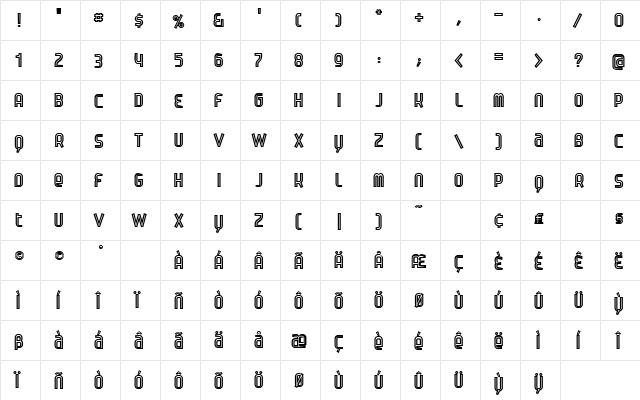
Danoutline Regular
Design Context for Danoutline Typeface
Danoutline is built around its visual character rather than neutral utility — its distinctive forms are designed to make an impression at display sizes.
Font Pairing: Pair with a clean neutral sans-serif for body copy to let Danoutline's character lead without overwhelming the composition.
Pro Tip: Use Danoutline exclusively at display sizes — it was designed to be seen, not read at length. Let a neutral companion handle body copy.